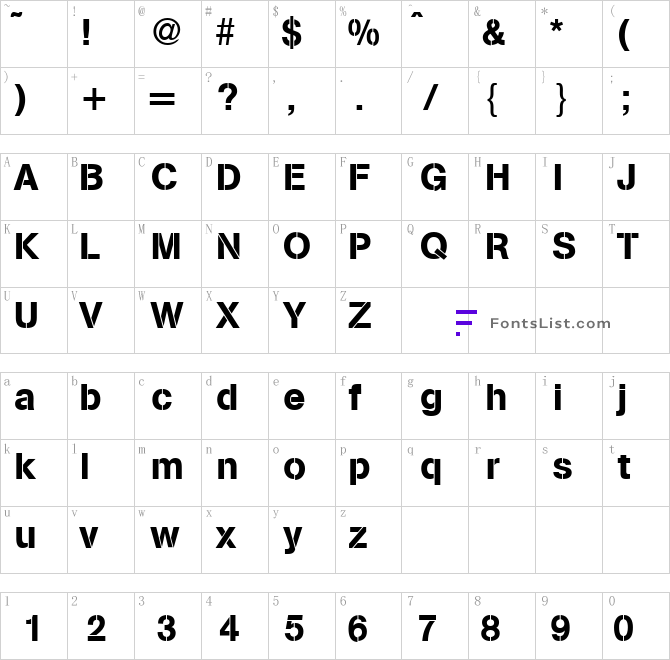
- Font Name:Absolute
Absolute-Regular.ttf is a very beautiful artistic font, Absolute-Regular.ttf is widely used in the design and printing of various books and pictures,Absolute-Regular.ttf has a strong visual impact,Absolute-Regular.ttf is a commonly used font in newspapers, magazines and books, and is used in posters, e-commerce Poster design, store design, logo design, font design and other fields.Absolute-Regular.